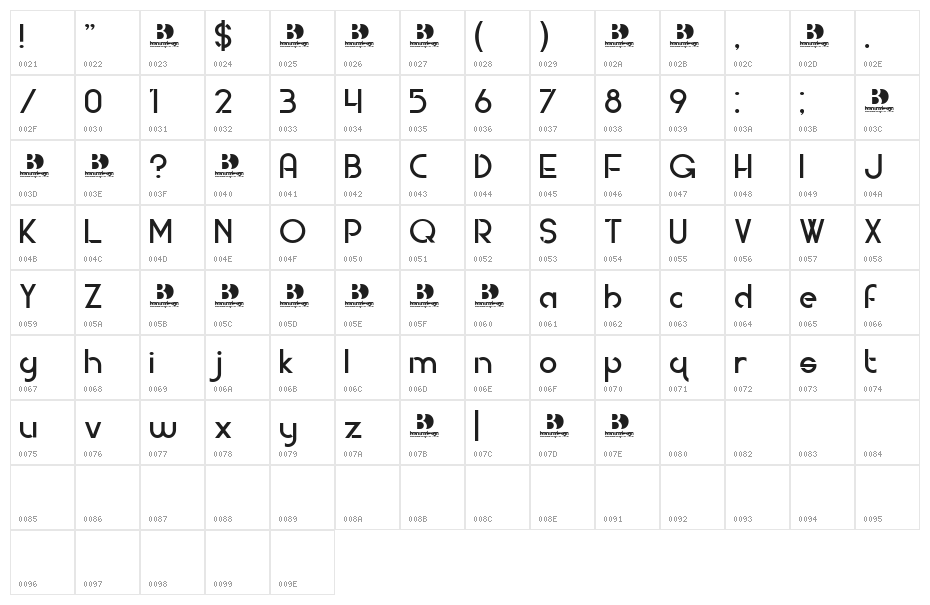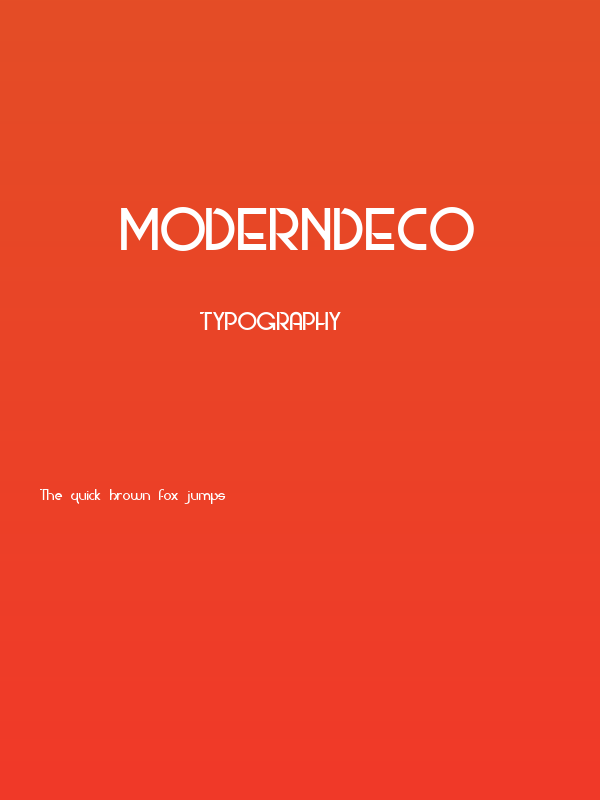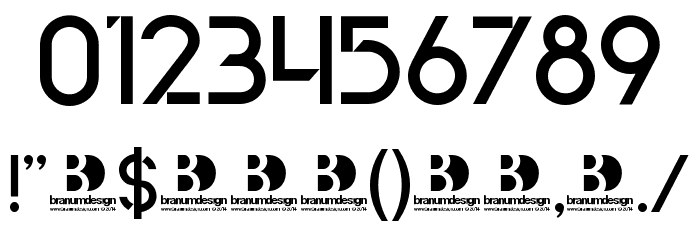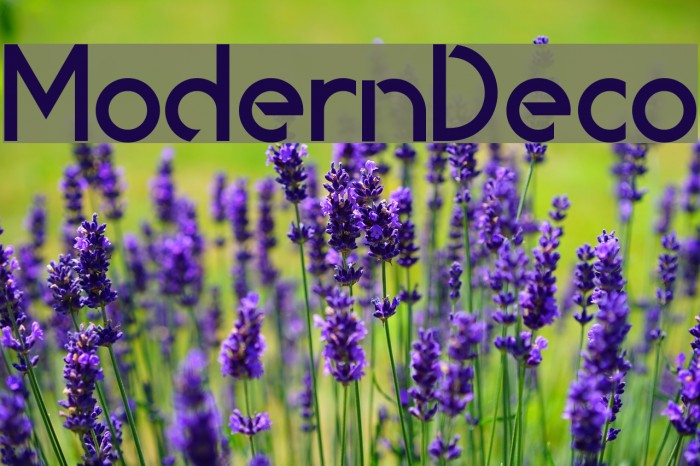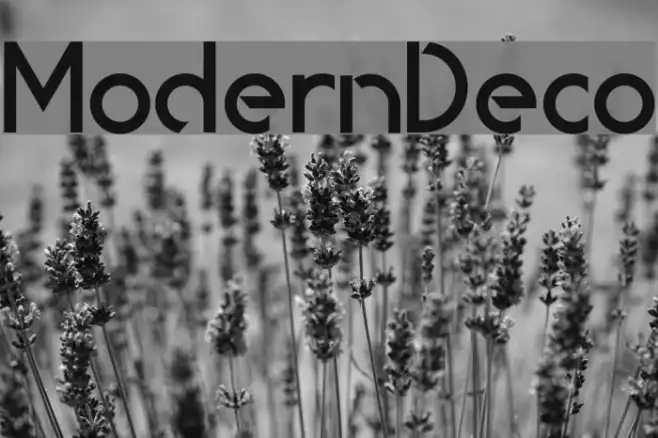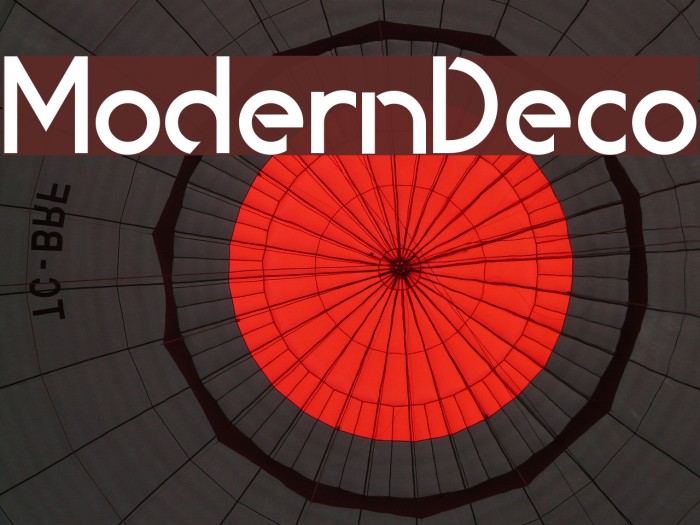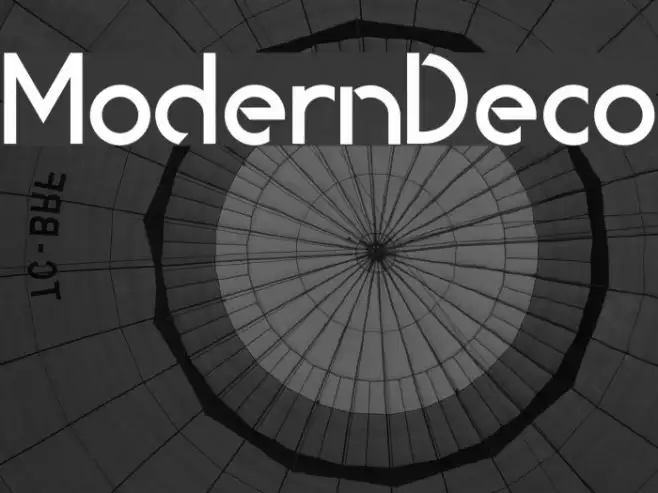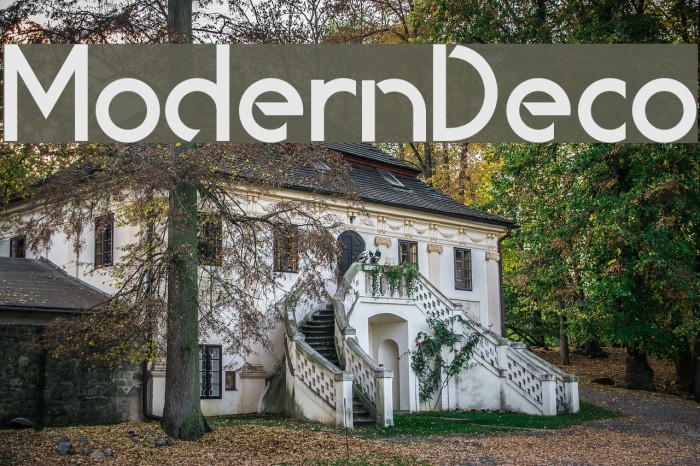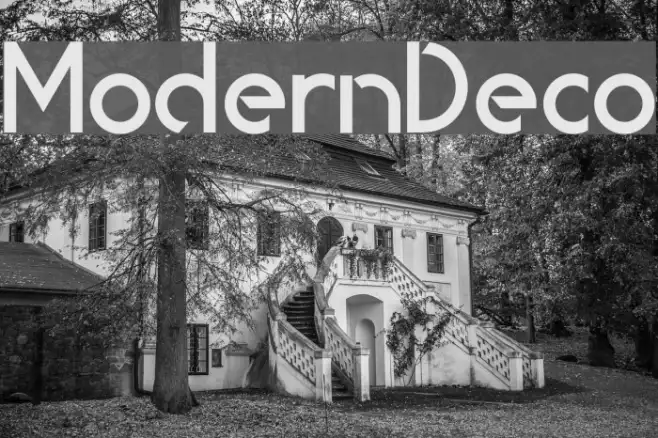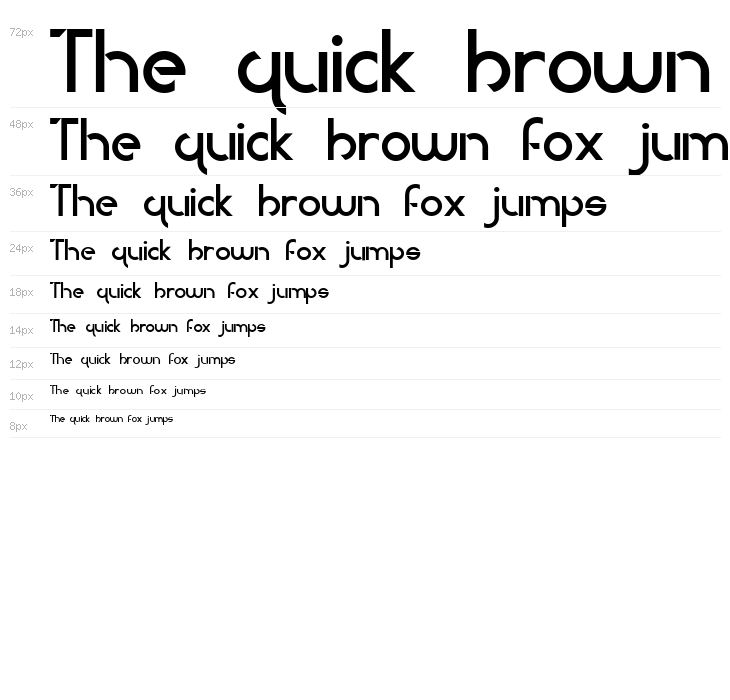
ModernDeco Font
ModernDeco Description
This font exhibits a modern, geometric style with clean lines and a sleek appearance. The uppercase letters are bold and structured, featuring sharp angles and a consistent stroke width that conveys a sense of precision and clarity. The lowercase letters maintain this geometric theme, offering a harmonious balance between form and function. The numerals are equally well-crafted, ensuring readability and aesthetic appeal. Special characters are designed to complement the overall style, making this font versatile for various applications. Its contemporary design is suitable for projects that require a modern and professional look.
| Proposed Projects | Ideal for branding, advertising, digital media, and editorial design projects. |